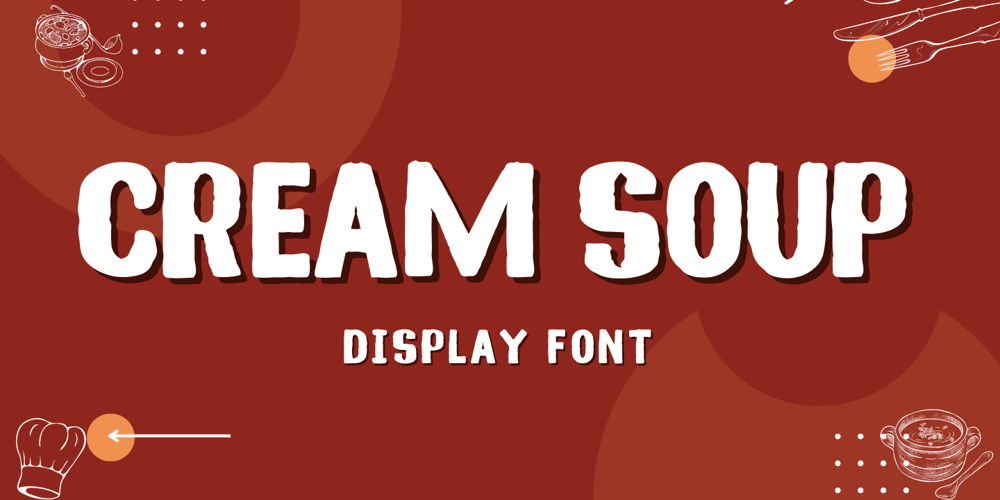
Cream Soup
Cream Soup font
Cream Soup Font Family was designed by Muhammad Fikry and published by Fikryal. Cream Soup contains 1 styles and family package options. Cream Soup – Font is a display brush font. It’s perfect for logos, branding, title, social media posts, advertisements, product packaging, product designs, label, photography, watermark, special event, magazine, web designs, etc. If you have any questions please don’t hesitate to contact me.follow my Instagram: fkryallThank you 🙂